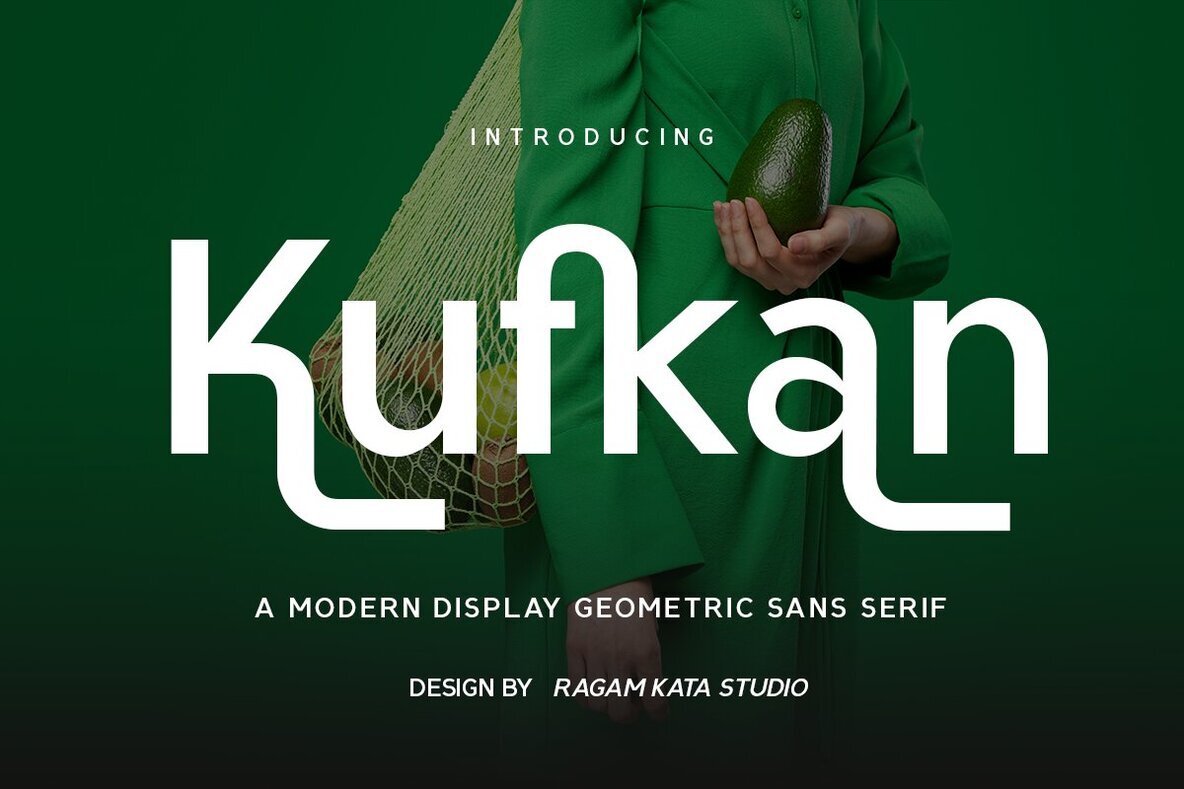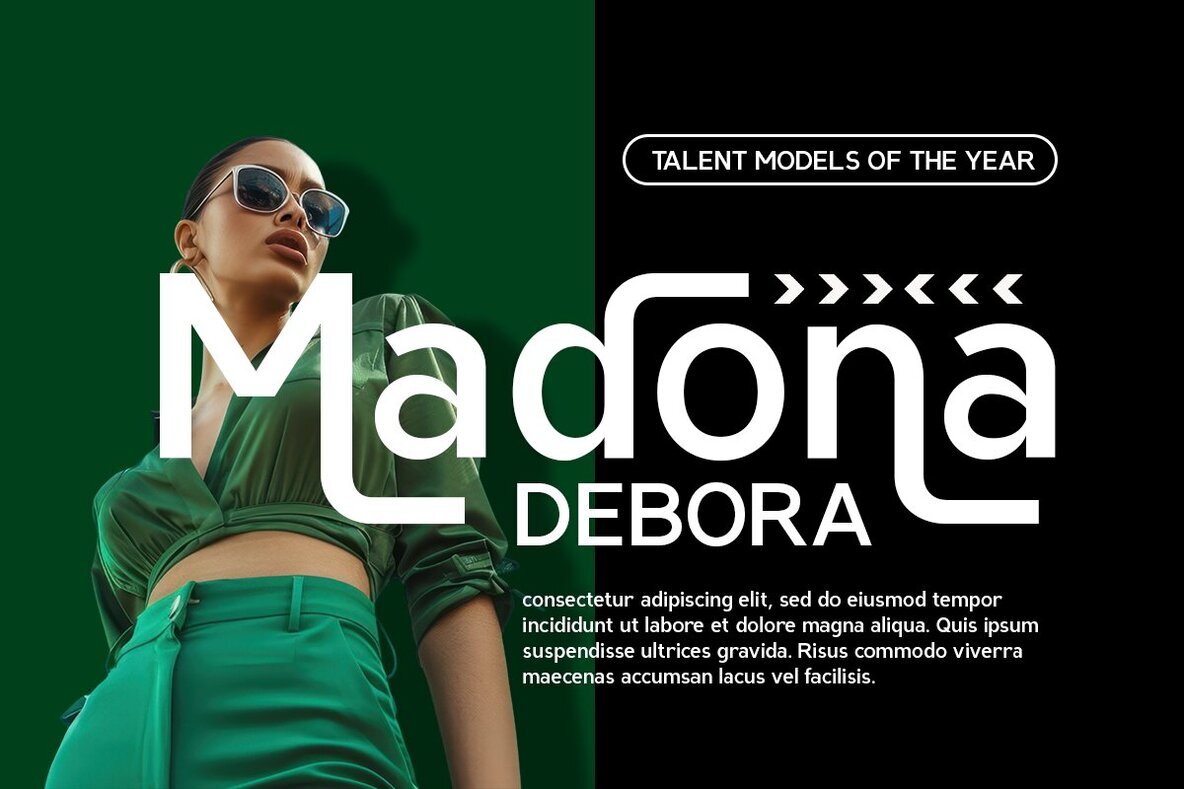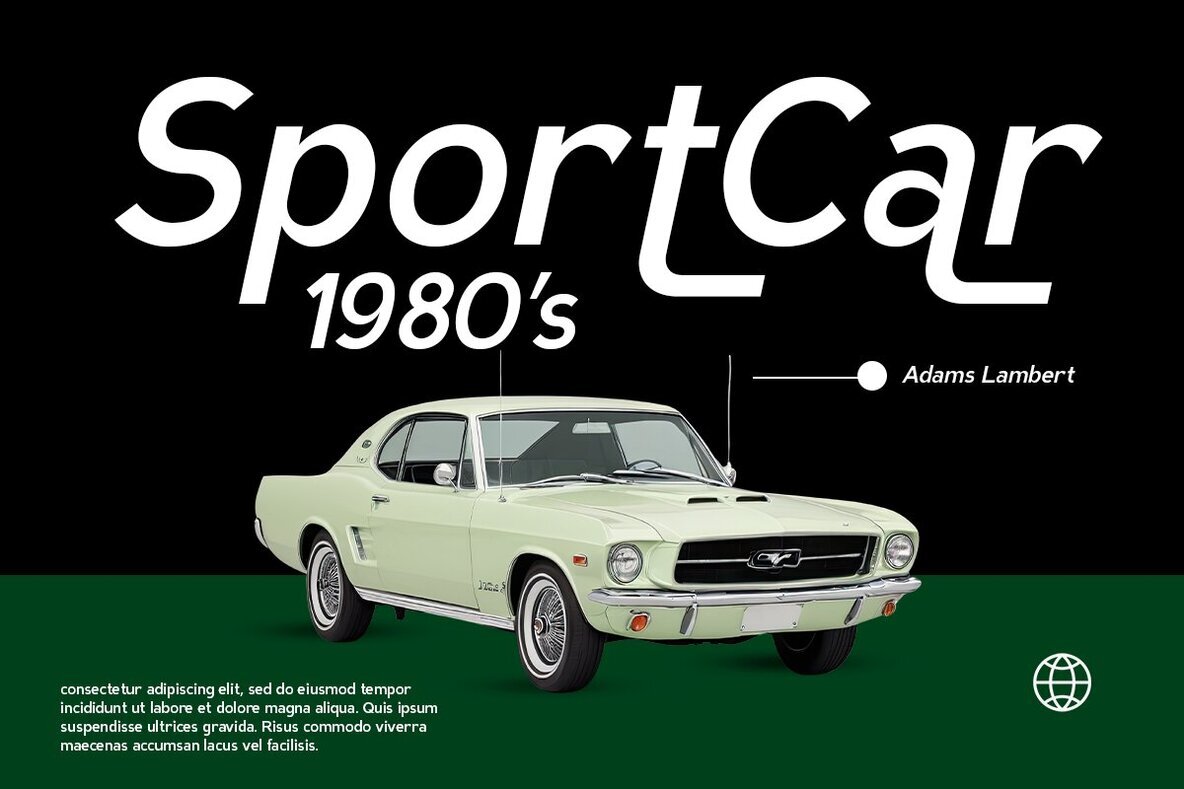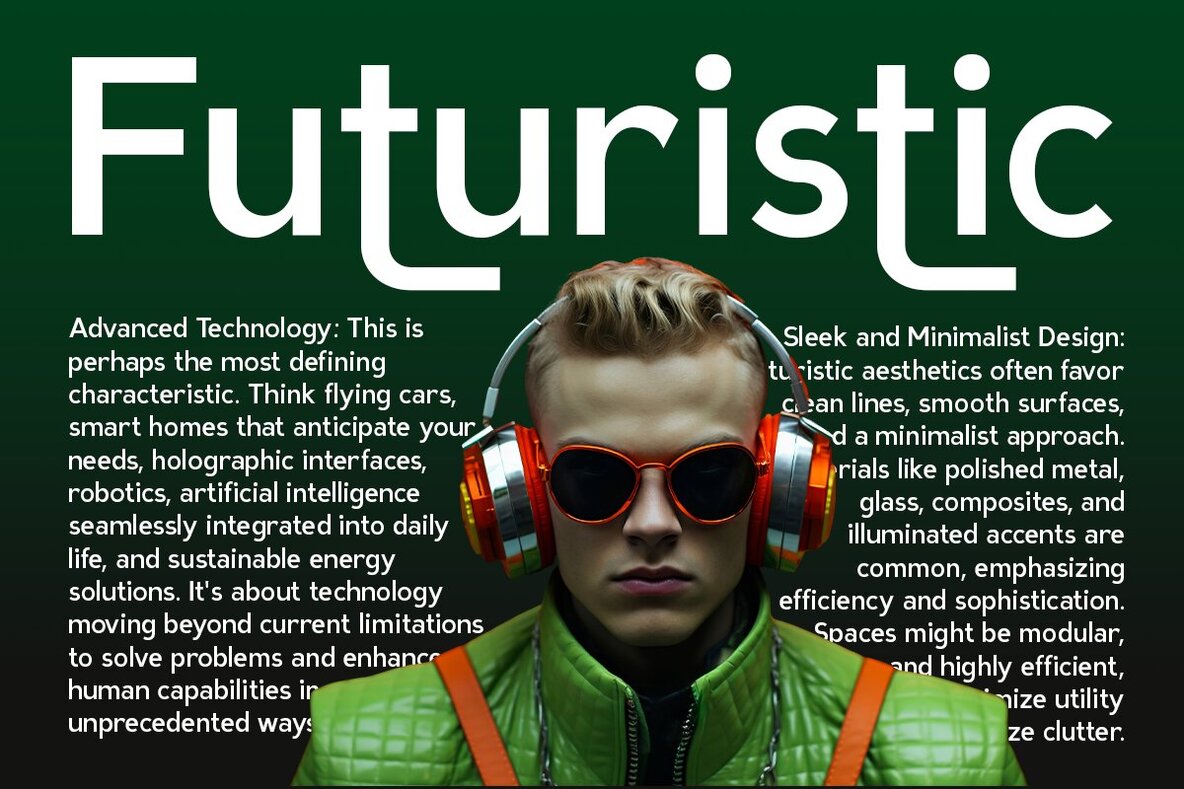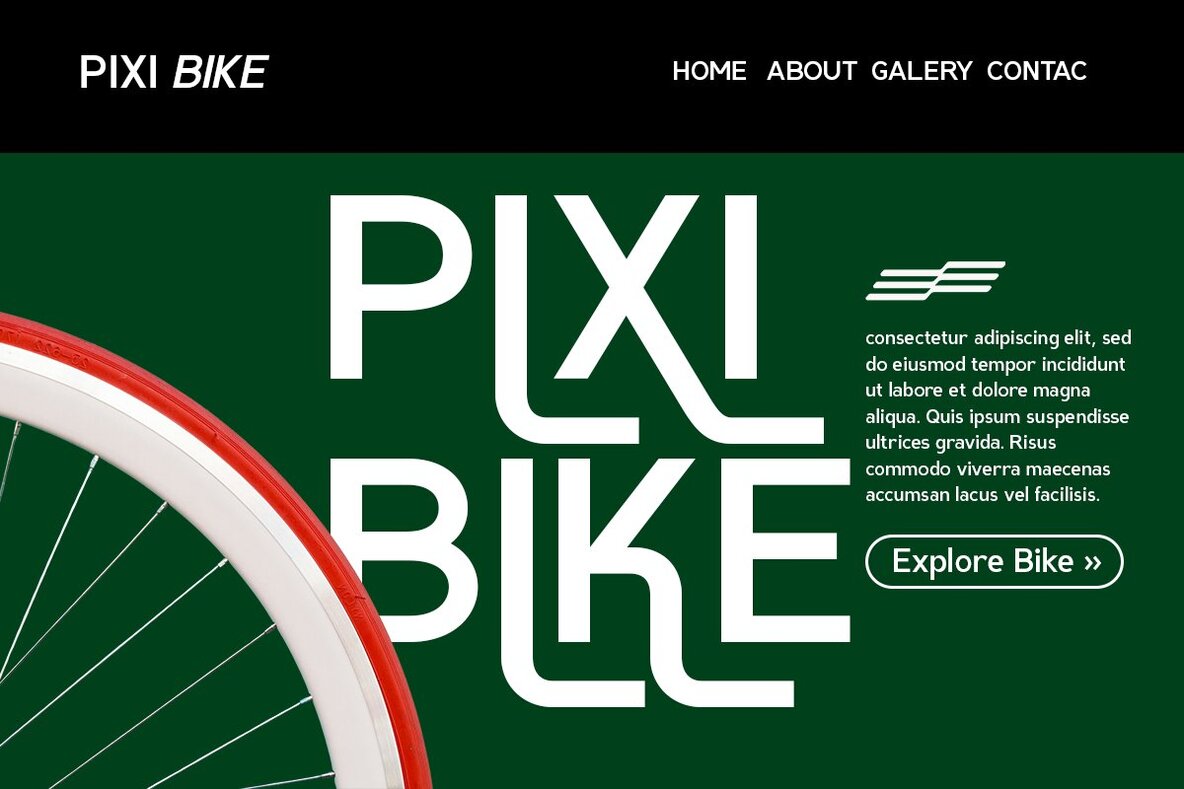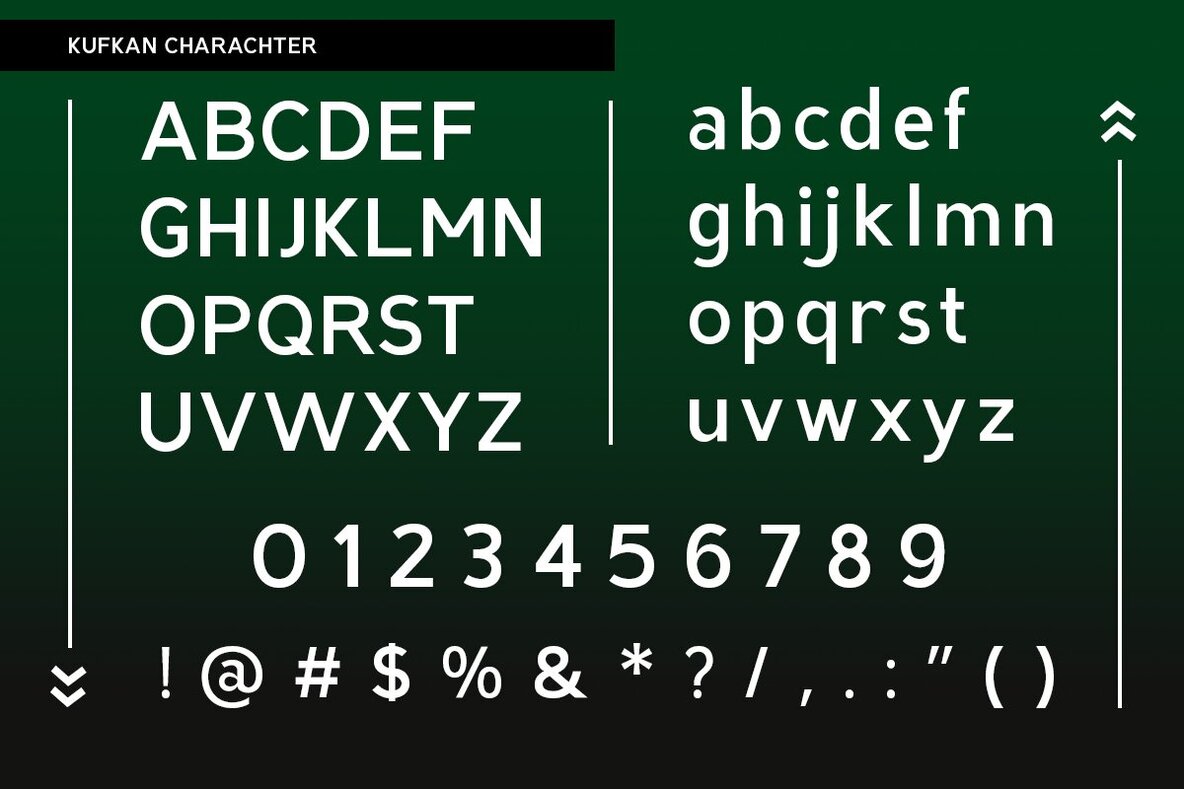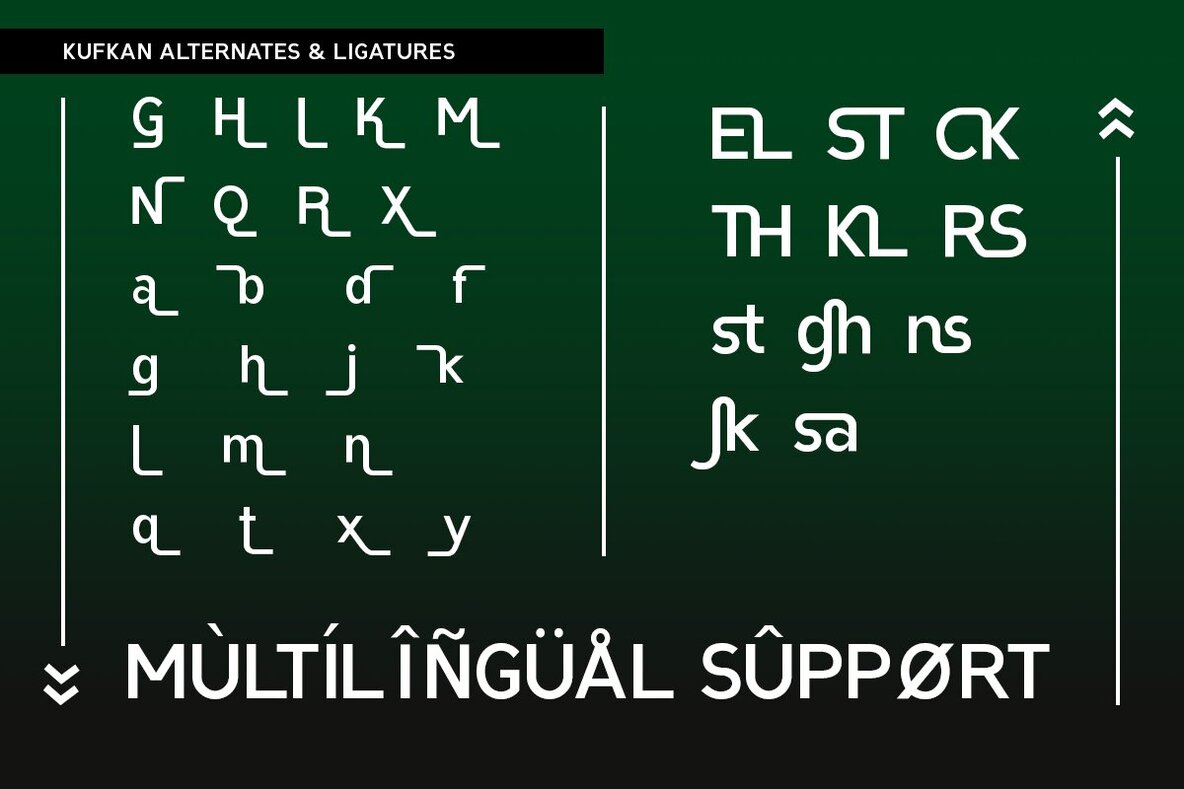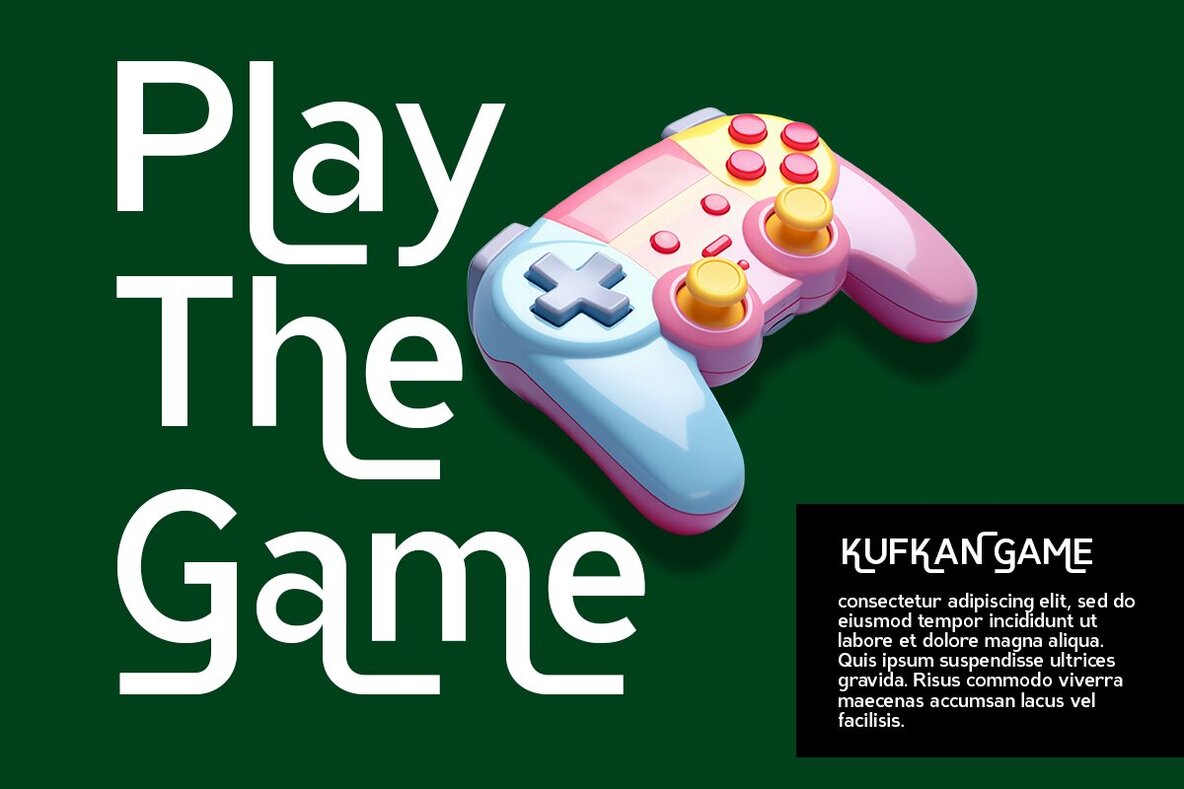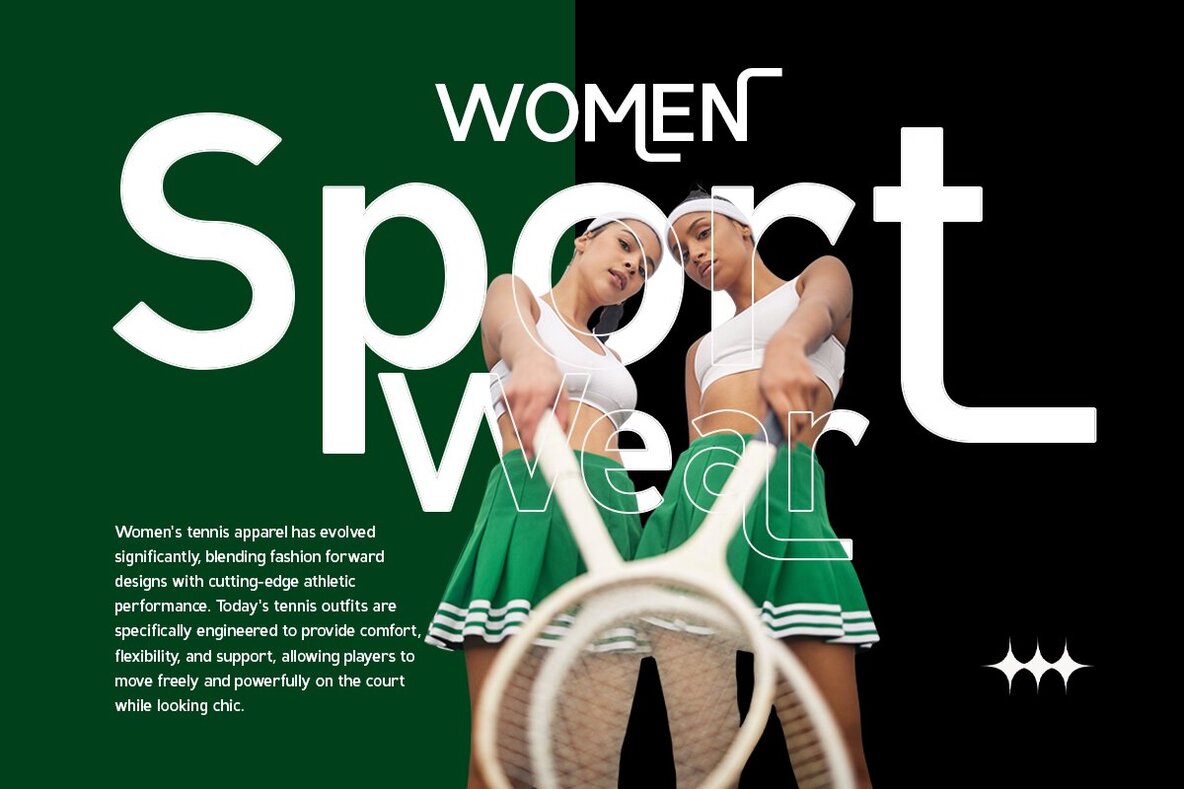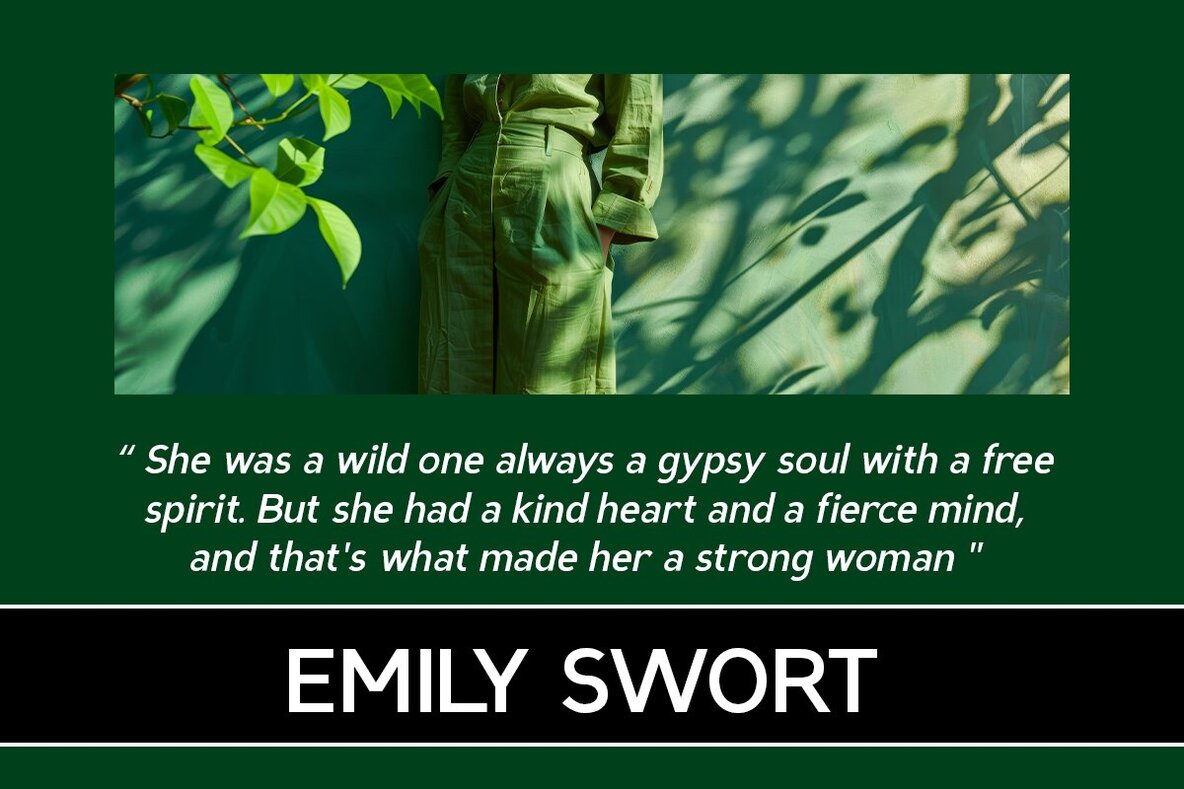
Kufkan Font
Kufkan is a modern geometric sans serif typeface designed to elevate branding and visual storytelling. With its clean lines and harmonious letterforms, Kufkan lends a touch of minimal elegance to any design project. Perfect for packaging, editorial layouts, digital interfaces, or logo designs, this typeface makes a bold impression with its clarity and style. Ideal for eco-conscious brands, trend-setting fashion products, tech firms, and creative agencies, Kufkan offers a refreshing and confident voice.Kufkan: A Geometric Sans Serif for Stunning Branding